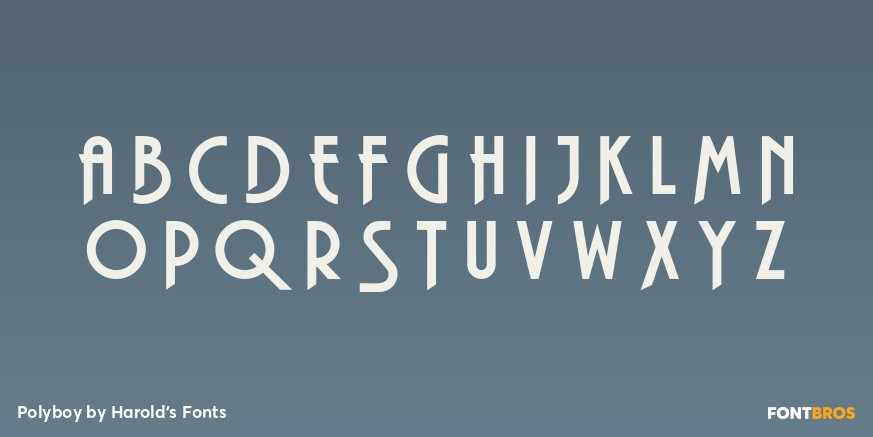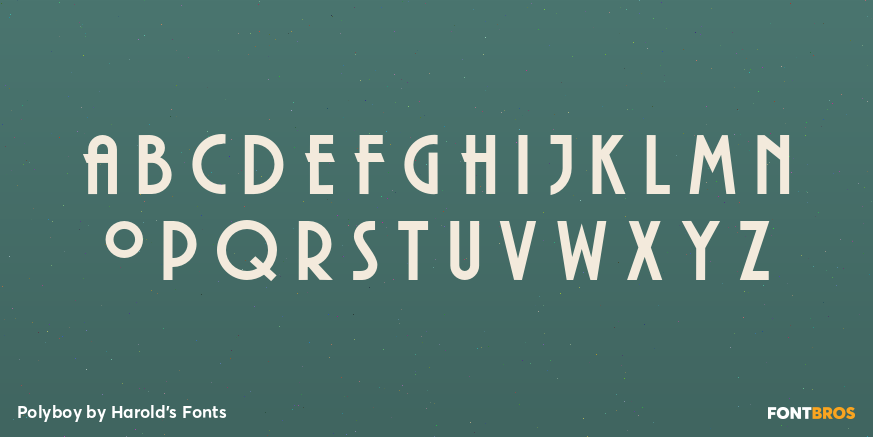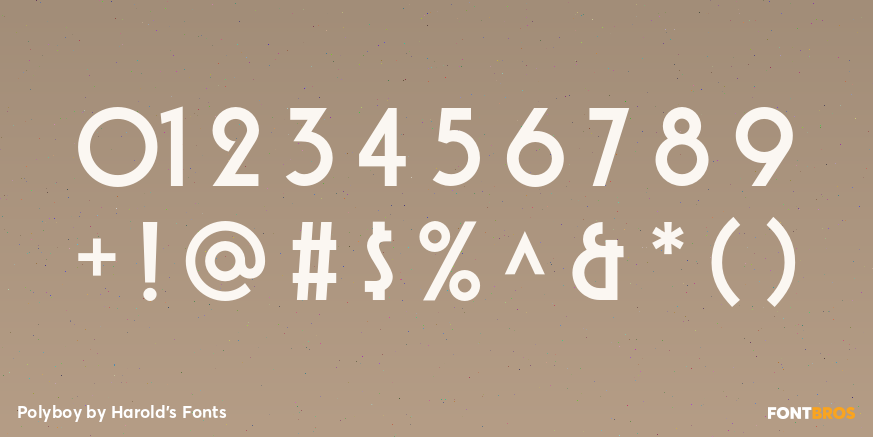
Polyboy
Font Family by Harold's Fonts
POLYBOY is a strong and stylish set of geometric fonts with roots in 1970s design. The set of 5 Polyboy fonts includes 3 weights (Regular, Demi, and Ultra) and 2 striped variations (Inline and Double Line.) Most letters appear in 3 forms—lining caps, descending caps, and swash caps—taking your design from day to evening and beyond.